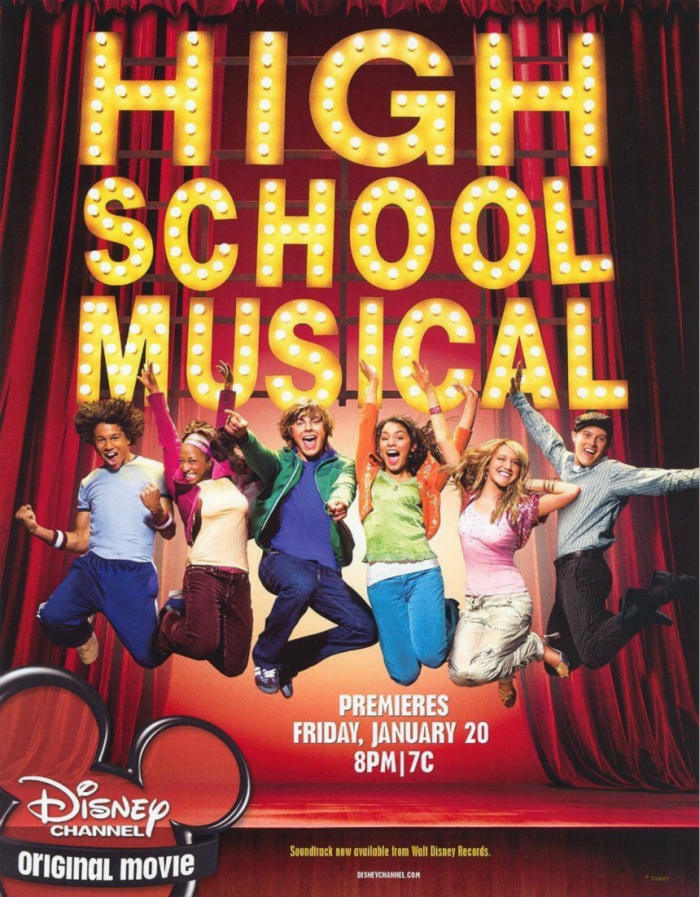
High School Musical Font
Fonts in UseHigh School Musical is a 2006 American musical film directed by Kenny Ortega, following the story of two high school students who come from different social groups but find love and passion for music together.
The poster's film title features the font Helvetica Neue Black with the words "SCHOOL MUSICAL" manually condensed.